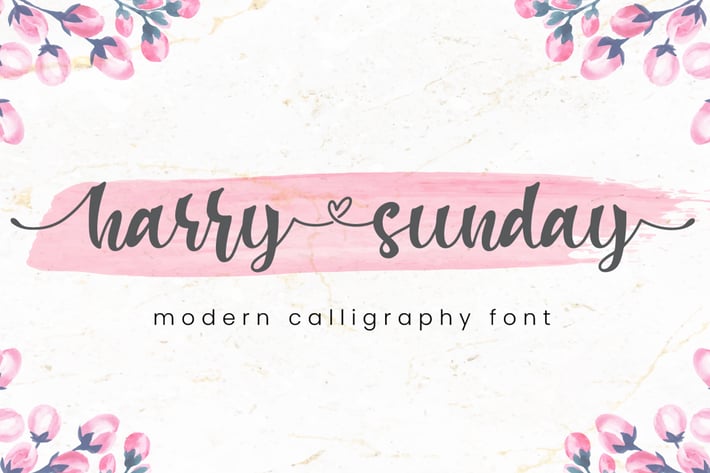
Harry sunday - Script Font
harry sunday is a delicate and incredibly distinct handwritten font with 3 stylistic set. Fall in love with its incredibly versatile style and use it to create spectacular designs!
ligatures
Beginning & Ending Swash